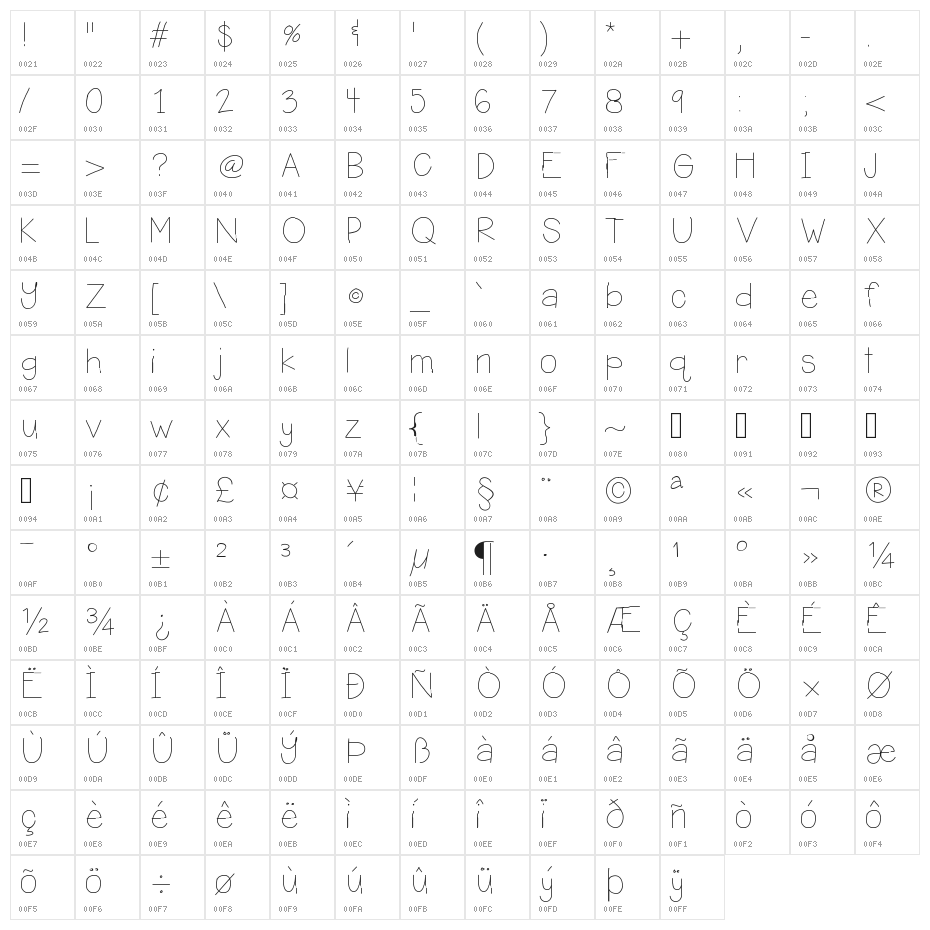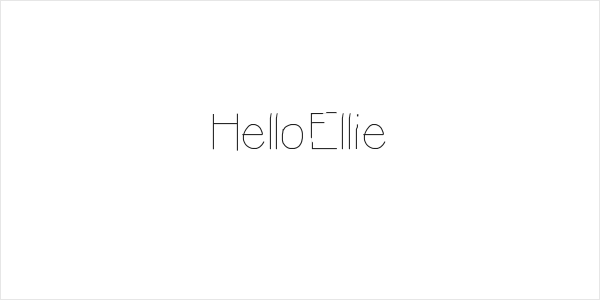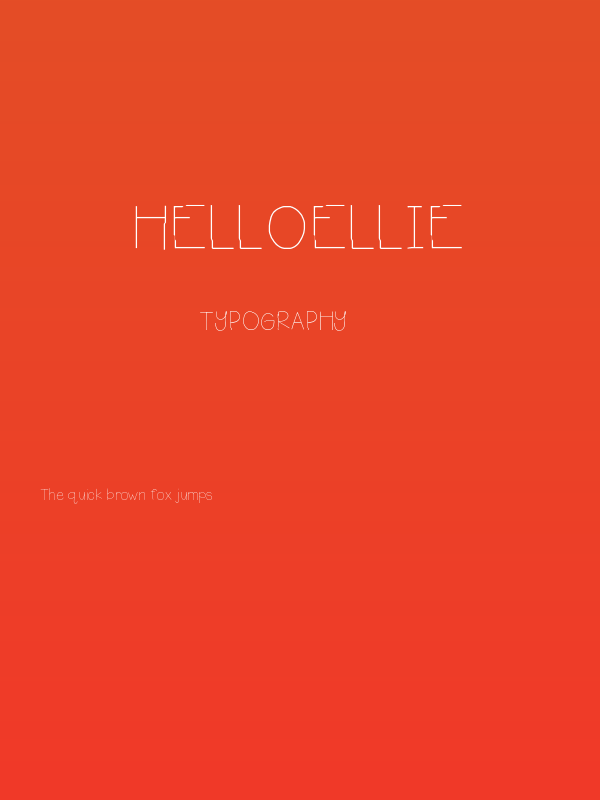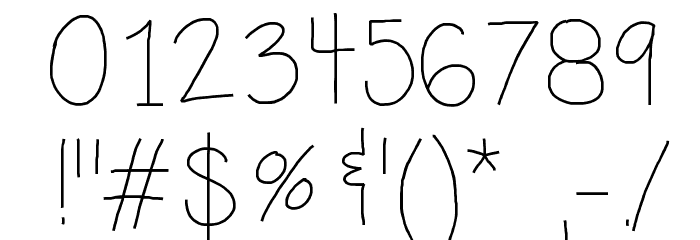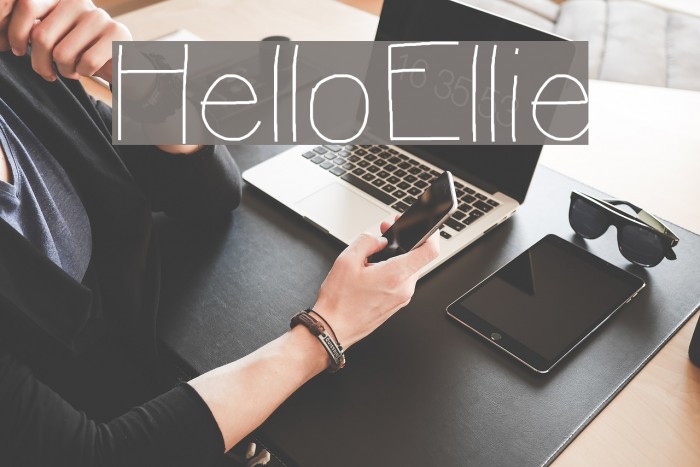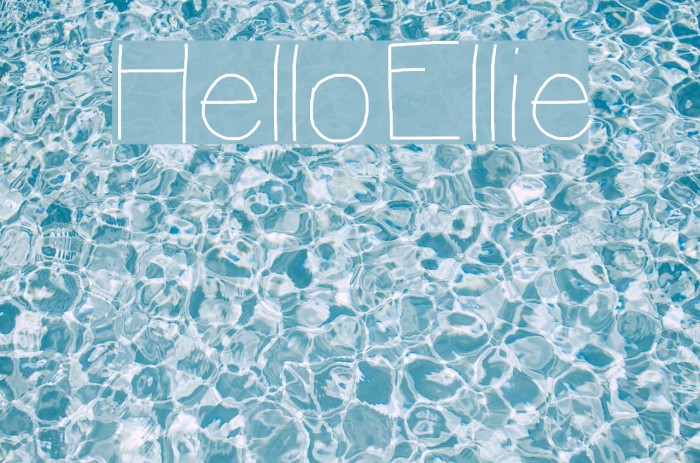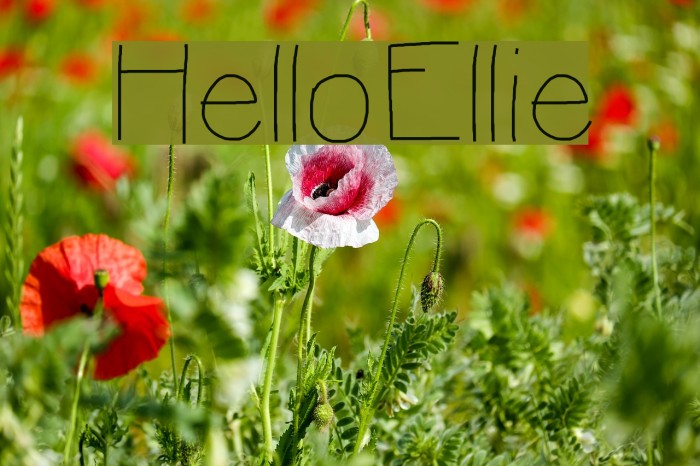
HelloEllie Font
HelloEllie Description
This font features a playful, handwritten style with a casual and informal appearance. The characters are thin and slightly uneven, giving them a whimsical and approachable feel. The uppercase letters are tall and narrow, while the lowercase letters maintain a consistent height, adding to the font's charm. The numbers and special characters follow the same playful aesthetic, making them suitable for creative projects. The overall design is clean and legible, with a touch of personality that makes it stand out in informal settings.
| Use Case | Headlines, Logos, Informal text |
| Proposed Projects | Ideal for children's books, greeting cards, playful branding, and casual invitations. |